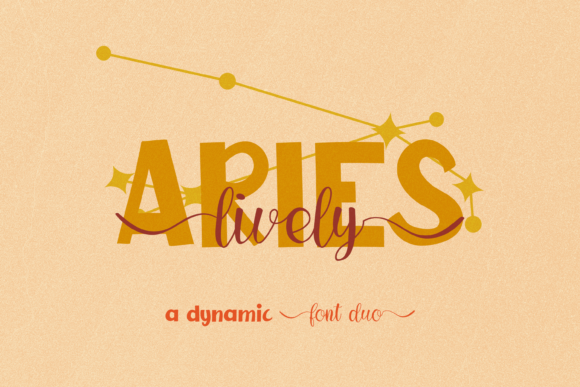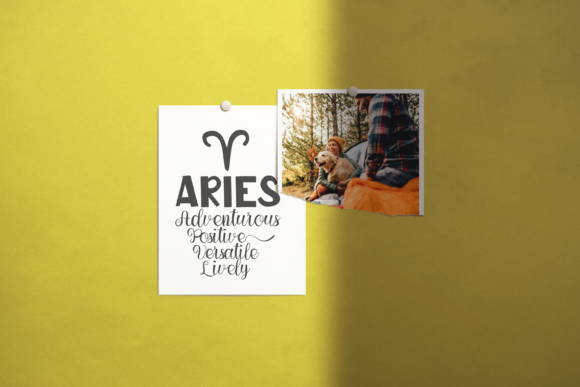
Lively Aries Duo Font
About the Lively Aries Duo Font
The Lively Aries Duo Font is here to transform your projects with its distinctive character and style. Lively Aries Duo consists of two fonts (script and display) designed to complement each other perfectly. Together or apart, the fonts are ideal for adding a chic and cheery touch to your crafts. This font is PUA encoded which means you can access all of the glyphs and swashes with ease!
Lively Aries Duo’s playful script and bold display fonts excel in projects requiring a cheerful, yet sophisticated aesthetic. Ideal applications include branding for boutiques, invitations, short headlines, and packaging for products targeting a younger, trend-conscious demographic. Avoid using it for large blocks of body text or UI elements where readability is paramount; the script font, in particular, lacks the legibility for extended reading.
Pairing Lively Aries Duo successfully hinges on contrasting its expressive nature. Consider pairing the display font with a clean sans-serif like Open Sans for a modern feel, or a classic serif like Garamond for a more timeless elegance. For a more playful outcome, a geometric sans-serif such as Futura would create a striking contrast. The script font works well paired with a simple, neutral sans-serif for logos or short taglines.
The overall personality of Lively Aries Duo is undeniably upbeat and modern, conveying both energy and refinement. Its versatility allows for a wide range of applications, but thoughtful pairing ensures maximum impact.
Lively Aries Duo Font Example